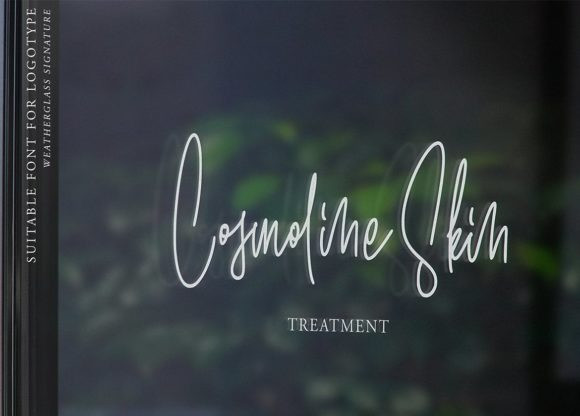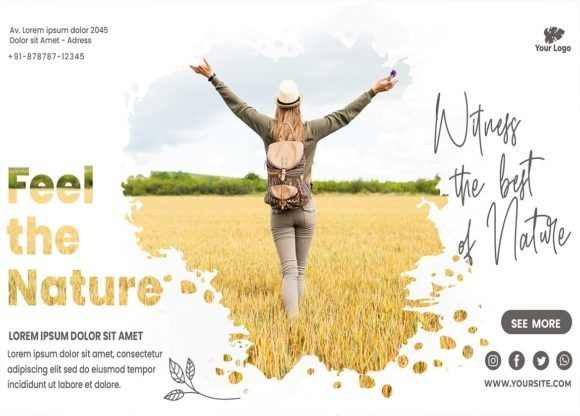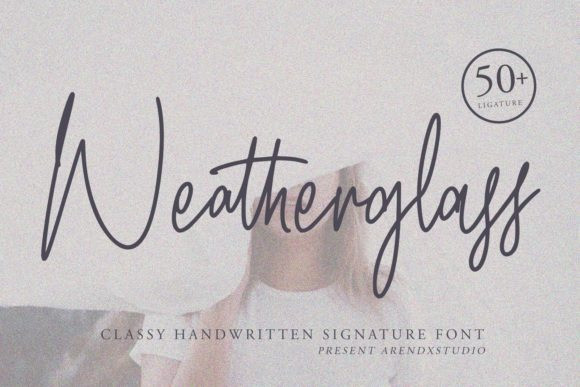
Weatherglass Handwritten Font
Weatherglass is a stylish and timeless handwritten font. It is the best choice for creating eye catching logos, branding and quotes. Every letter has a unique and beautiful touch, which will make your design come alive!